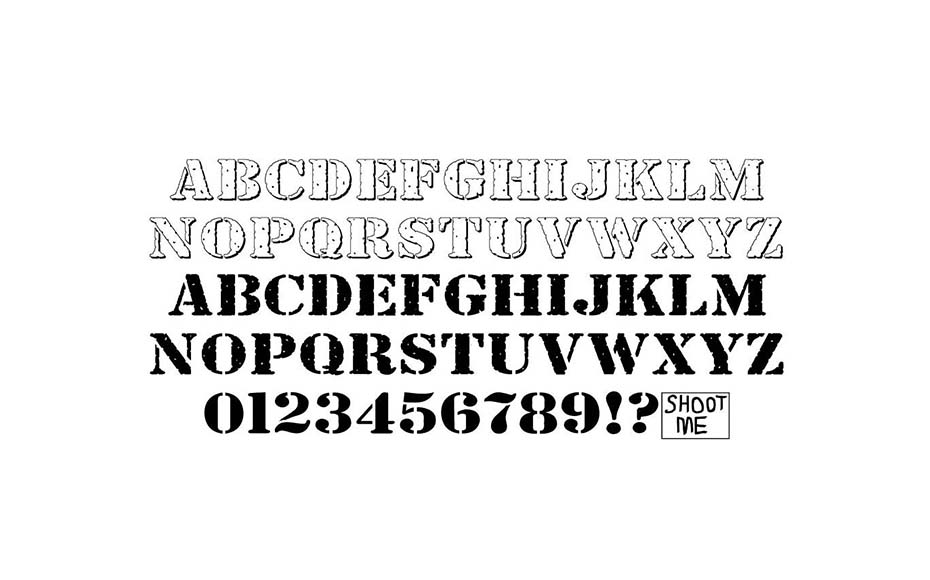
Vlone Font is a logo font that we have seen for the first time in a cloth brand Vlone. In the beginning, this brand start to work on social media in 2013. But now it’s become a famous brand with outlets.
The most interesting thing about this brand is the logo that attracts several designers to itself. So, here we share a font that looks similar to this brand logo font.
The font name is Bundy Yellow Font that belongs to the fancy font. Its texture is so elegant because it contains solidity with fissured texture that make it unique from the others.
It has created by Mad Mutt and it has available in two weights including Bundy Yellow HS and Bundy Yellow Solid. Each weight contains 89 glyphs with 259 characters.
The overall texture is serif but the fissured layout makes it decorative fancy font. So, you can easily create magnificent designs with this super cool font help.
You can use it for creating logos, banners, posters, emblems, game graphics, product designs, special event cards, t-shirts, shopping bags, and many other things.
This elegant font has support in 16 languages including Estonian and Spanish. So, feel free to create astonishing designs in various languages for sure.